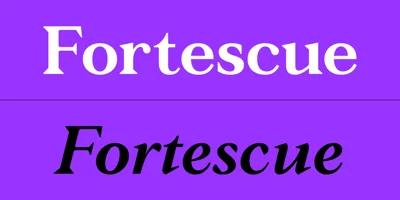
Fortescue Font
Perfect for prestigious law firm branding, financial institution communications, luxury estate marketing, academic institutional materials, heritage foundation publications, high-end consulting presentations, aristocratic event invitations, and distinguished corporate identity systems.
This font is exciting because it embodies aristocratic elegance and institutional gravitas with refined letterforms that capture the distinguished heritage and unwavering authority found in established prestige and traditional excellence.
Command respect with distinguished elegance using Fortescue Font, a prestigious typeface that embodies the refined sophistication and institutional authority of established aristocratic heritage. This exceptional font brings the commanding presence and traditional excellence of distinguished lineage to contemporary design projects, making it indispensable for organizations seeking to convey prestige, institutional credibility, and the timeless authority that defines prestigious establishments and heritage institutions.
Fortescue Font features elegantly refined letterforms with aristocratic characteristics and distinguished proportions that immediately communicate institutional prestige and traditional authority. The meticulously crafted characters combine heritage aesthetics with contemporary functionality, creating immediate associations with established excellence, institutional credibility, and the distinguished reputation that defines prestigious organizations and traditional institutions of highest standing.
The font's remarkable institutional presence makes it ideal for law firms, financial institutions, and prestigious organizations where conveying traditional authority and institutional credibility is essential for client confidence and professional standing. Whether you're designing materials for established legal practices serving prestigious clientele, creating communications for heritage financial institutions managing generational wealth, or developing brand identities for exclusive consulting firms advising industry leaders, Fortescue Font delivers the authentic aristocratic aesthetic that resonates with discerning audiences expecting institutional excellence.
Prestigious professionals and heritage institutions worldwide rely on the Fortescue Font for projects requiring aristocratic credibility and institutional authority. The font works exceptionally well for private banking institutions serving wealthy families, exclusive membership organizations maintaining traditional standards, academic institutions celebrating scholarly heritage, and any organization seeking to establish connections with audiences who appreciate traditional excellence and institutional prestige over contemporary trends.
The comprehensive Fortescue Font family includes multiple weights and variations that work harmoniously together like generations of institutional excellence, enabling professional communicators to create sophisticated hierarchies for complex prestigious content. Each variation maintains the signature aristocratic character while providing complete design flexibility for diverse institutional applications, from detailed legal documentation to bold heritage advertising campaigns that command attention in competitive prestige markets.
This typeface excels in both traditional institutional environments where heritage presentation is paramount and modern professional contexts where establishing aristocratic credibility is crucial for business development. The font's distinguished precision ensures optimal performance across all prestigious applications, from formal legal documents to printed institutional materials that must communicate unwavering authority and traditional excellence.
Fortescue Font's aristocratic aesthetic enhances the perceived value of institutional content while maintaining the contemporary relevance necessary for engaging modern audiences who appreciate traditional values and established excellence. The font's distinguished character helps establish immediate credibility with prestigious audiences while projecting the institutional authority that defines market leadership.